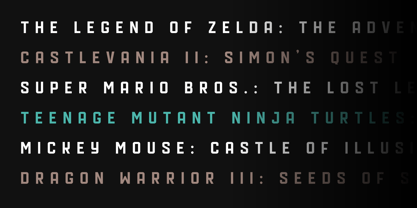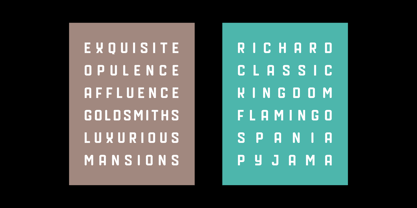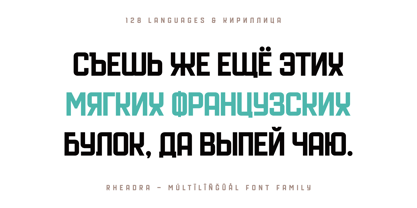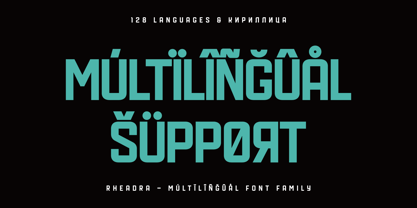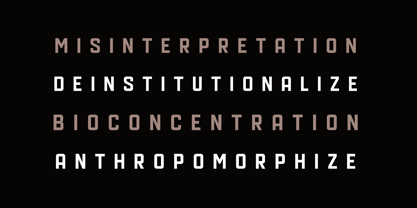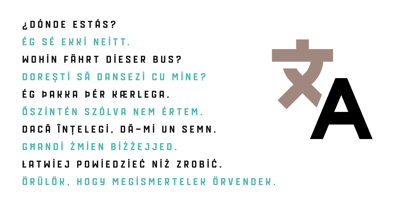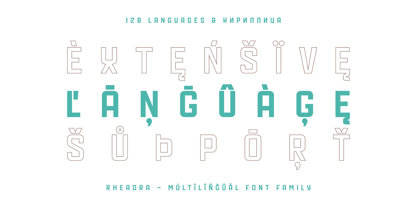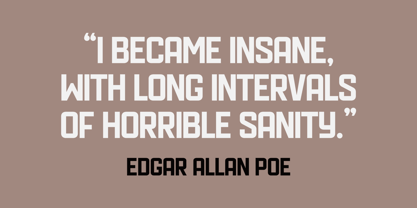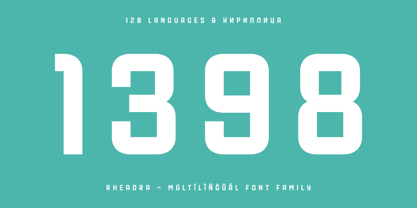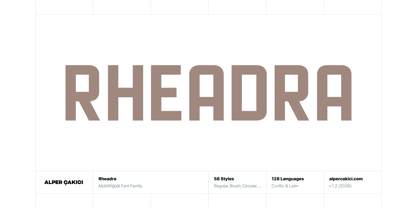
Rheadra
The Rheadra Font Family was designed by Alper Çakıcı and published by AlperCakici. Rheadra contains 58 styles and family package options. More about this family
Rheadra is a versatile sans serif typeface built on a distinctive rounded-rectangle structure, blending geometric precision with soft, modern curves. Designed for flexibility, it offers an extensive range of expressive styles—from clean and minimal to textured and experimental—making it suitable for branding, editorial design, packaging, and digital interfaces. With a large superfamily of styles including Angular, Circular, Rounded, Brush, Outline, Inline, Pencil, Rough, Rimmed, and Eroded, Rheadra adapts effortlessly to both contemporary and playful design directions. Each style is carefully crafted to maintain consistency while delivering unique visual character. Rheadra supports a wide range of languages, making it a strong choice for global communication and multilingual projects. Whether used for bold headlines or refined layouts, it brings clarity, personality, and modern appeal to any design.
Designers: Alper Çakıcı
Foundry: AlperCakici